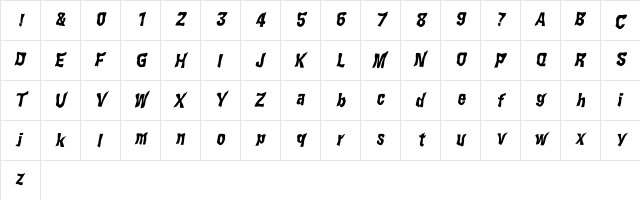
WILD2 Ghixm NC Bold Italic
Design Context for WILD2 Ghixm NC Typeface
WILD2 Ghixm NC is a composed and adaptable typeface that performs quietly and consistently across a wide range of design contexts. Its italic angle brings a sense of urgency and motion to the letterforms. The heavy weight commands attention and anchors typographic hierarchies.
Pro Tip: Use WILD2 Ghixm NC for emphasis, pull quotes, and subheadings where its slanted energy can add rhythm to the layout.